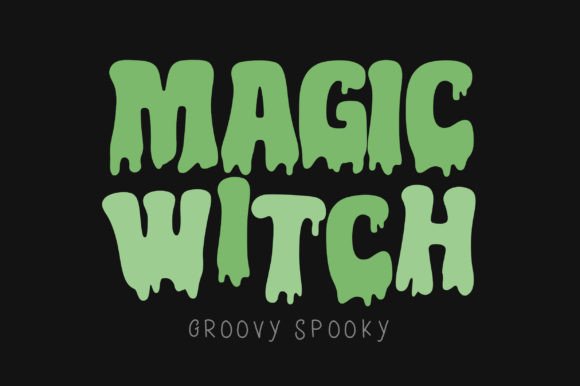
Introducing the exquisite Magic Witch Font, the ultimate choice for creating a spine-chilling atmosphere in your projects! Designed by the talented team at AMost Store, this font is a must-have for anyone seeking to add a touch of macabre to their designs.
With its dripping letters and groovy vibe, Magic Witch Font is the perfect companion for all your Halloween-themed displays and product designs. Whether you're working on spooky shirts, boho designs, stickers, logos, branding, greeting cards, Cricut projects, posters, magazines, social media content, planner prints, or websites, this font will bewitch your audience with its captivating charm.
Imagine the thrill of unleashing the dark magic of Magic Witch Font onto your creations. With each letter dripping like blood from a haunting tale, your designs will evoke a sense of mystery, fear, and excitement. The unique aesthetics of this font will leave your audience mesmerized and yearning for more.
Indulge in the wicked delight of using Magic Witch Font to bring your horror stories to life. This font is specifically crafted to captivate and immerse your readers in a world of spine-tingling suspense. As your words dance across the page, the captivating visuals of Magic Witch Font will enhance the goosebumps and shivers, making your story truly unforgettable.
But the enchantment doesn't stop there. Magic Witch Font is not only visually stunning but also incredibly versatile. It transcends the boundaries of Halloween and horror, allowing you to infuse a touch of dark elegance into a wide range of projects. Let your imagination run wild as you explore the countless possibilities this font offers.